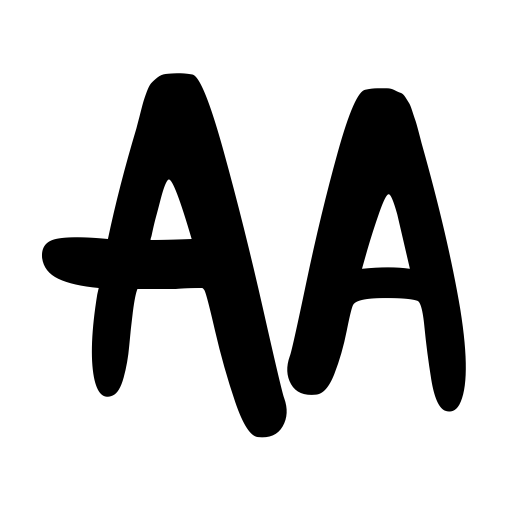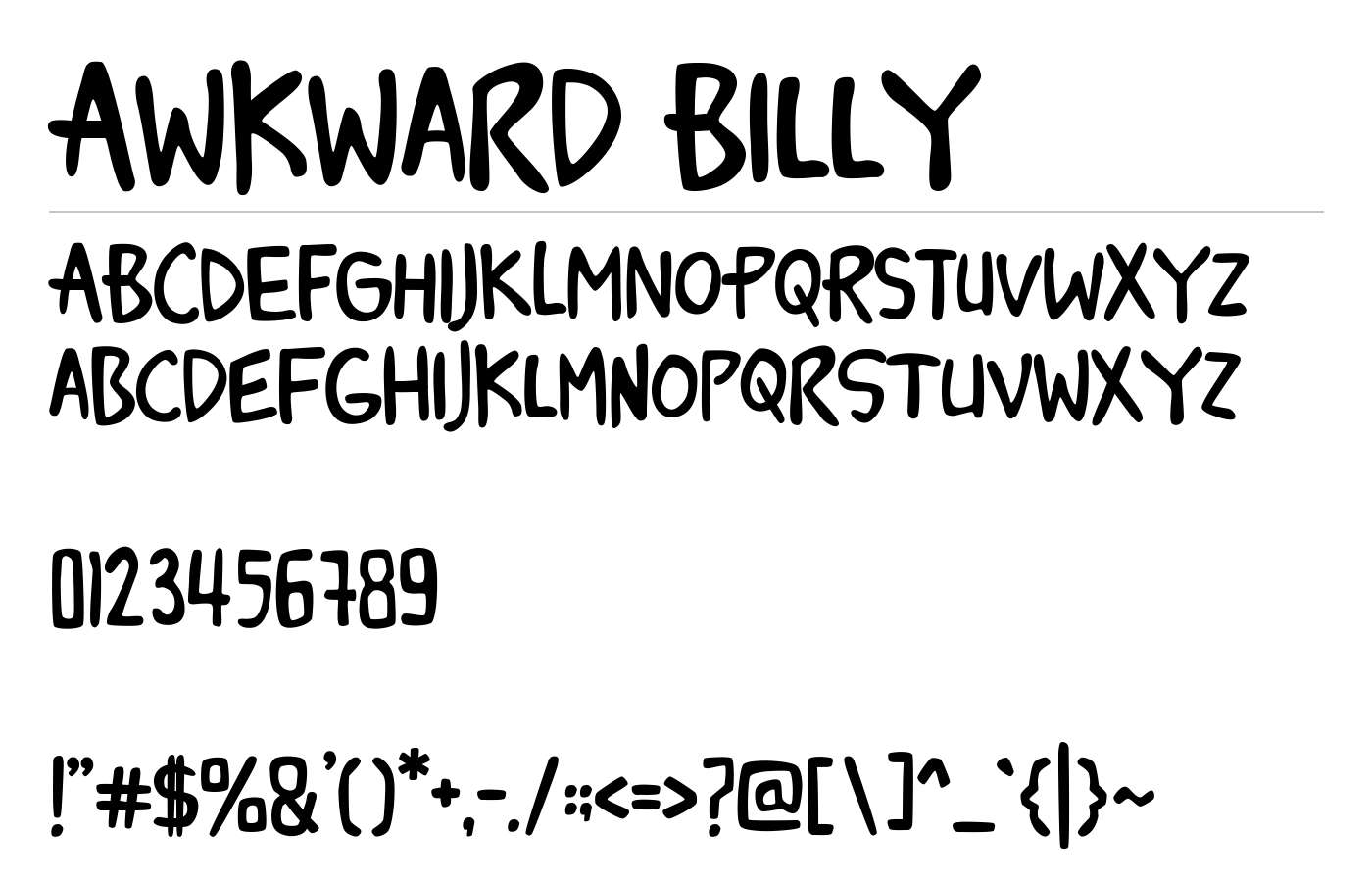
Awkward Billy is a playful, hand-drawn sans serif font with an informal and quirky vibe. Its uneven, rounded letterforms and irregular strokes give it a friendly, approachable feel, making it perfect for creative projects, casual branding, and fun headlines. This font works well where a lighthearted, youthful personality is desired, adding charm and character without sacrificing readability.
Awkward Billy Font
About Awkward Billy Font
| Font family | Awkward Billy Font |
| Designer | Sahirul Iman, Semarang, alexatype |